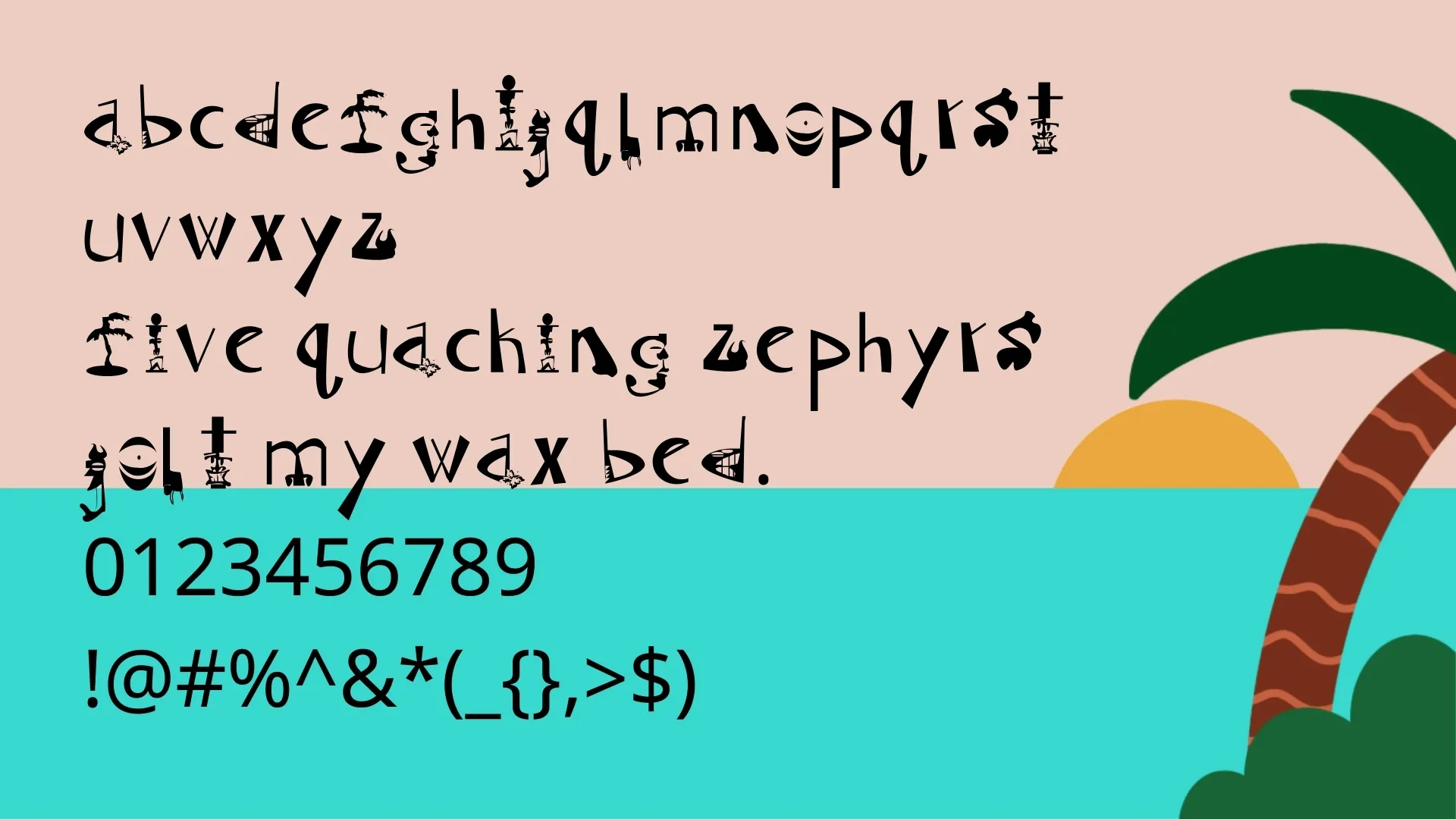
In today’s article, we are introducing the Tiki Font. This unique typeface features irregular shapes in all of its characters, making it a popular choice among designers. It is ideal for creating summer designs, especially when paired with dancing script font.
In this font family, there are many fonts present all of them are unique in nature and styling. For best results use this font with the pairing of cute handwriting font as it comes with unique styles and textures for creating many unique designs.
Due to the unique texture and style, this font is used Worldwide by designers to give a unique look to their designs. You can also use this font for different types of unique layouts by pairing it with Bembo font and can also be used for logos, publishing work, advertisements, and many more.
Designer of Tiki Font
This amazing and stylish font is styled and designed by Sharkshock. This font is used Worldwide due to its unique styling and nature.
View of Tiki Font
| Style | Fancy |
| Designer | Sharkshock |
What Type of Font Is Tiki Font?
This is a fancy display typeface, that comes with irregular characters and this font is used in many different designs.